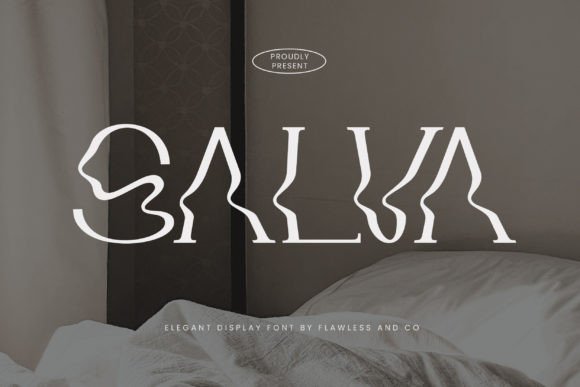
Unleash the Enchanting Power of "Salva": A Display Font Symphony for Tattoo Cursive Designs
In the realm of typography, a new star is born - "Salva," an exquisite display font that will mesmerize you with its enchanting charm. Crafted with meticulous attention to detail, "Salva" is not just a font; it's an artistic expression that transforms words into flowing, graceful waves. Its meticulously crafted curves and elegant lines dance across the page, creating an ambiance of sophisticated creativity.
With "Salva," you're not merely choosing a font; you're embarking on a journey of self-expression. Its captivating style adds a touch of magic to your tattoo cursive designs, allowing your words to radiate an aura of timeless elegance. Let "Salva" be the muse that inspires your creativity, igniting a fiery passion within you.
Imagine your tattoo cursive designs adorned with the captivating beauty of "Salva." Its intricate artistry will elevate your creations to new heights, making them stand out as masterpieces of artistic expression. Unleash your imagination and let "Salva" guide you towards a world of enchanting possibilities.